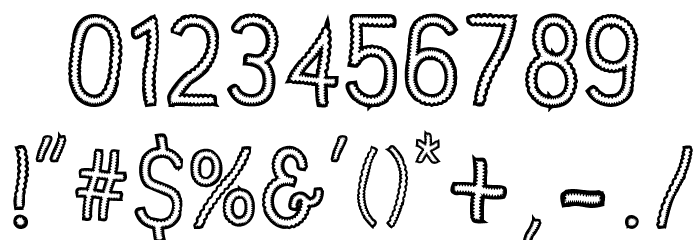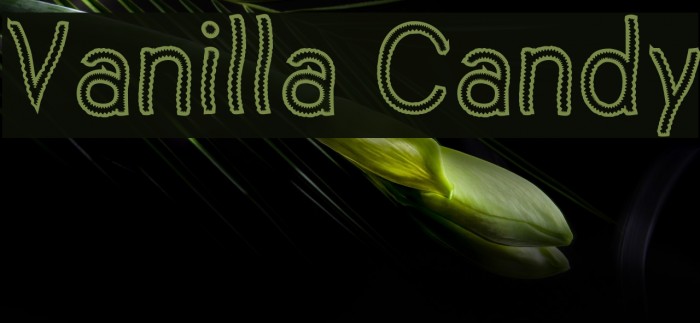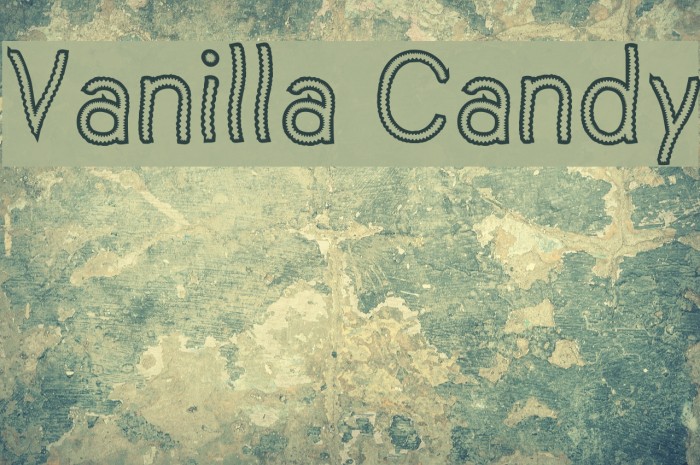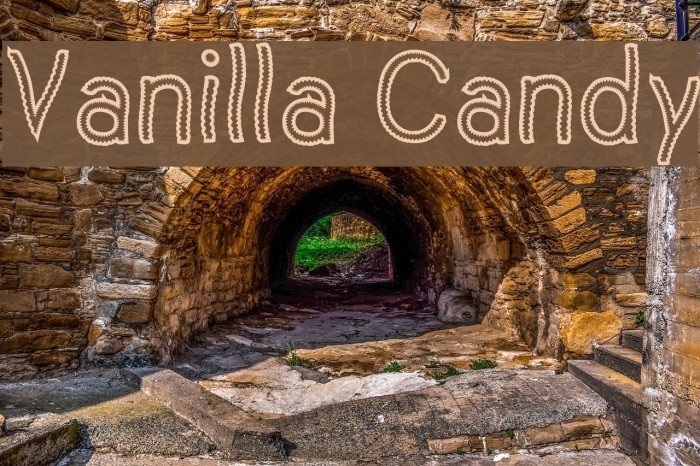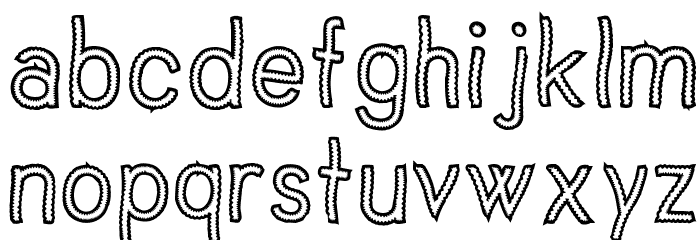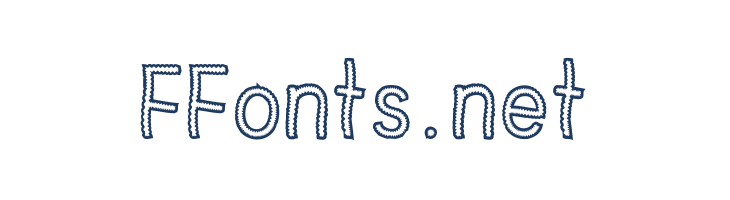
Vanilla Candy Font
Vanilla Candy Description
This playful and whimsical font features a unique, candy-like design with a dotted outline that gives it a textured appearance. The characters are bold and rounded, creating a friendly and approachable look. The uppercase and lowercase letters maintain a consistent style, with smooth curves and a slightly informal feel. Numbers and special characters are also included, matching the overall aesthetic. This font is perfect for projects that require a fun and lighthearted touch, such as children's books, party invitations, or playful branding.
| Overall Style | Playful, Whimsical |
| Proposed Projects | Ideal for children's books, party invitations, playful branding, and creative posters. |